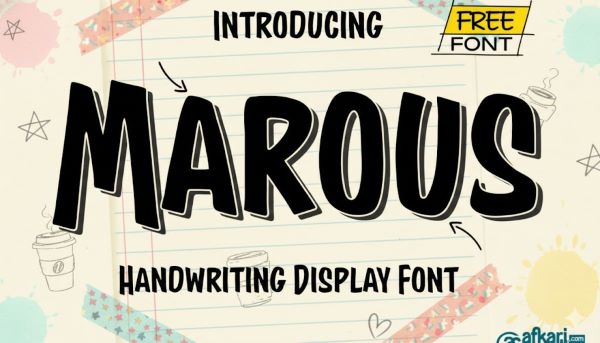
Marous Font
Marous Font is a charming handwritten typeface with smooth, natural strokes and a relaxed, friendly personality. Its casual yet stylish lettering makes it perfect for logos, quotes, invitations, journals, social media graphics, and creative branding. Marous adds warmth, authenticity, and a cozy handwritten feel to any design.
➤ Style: Handwritten